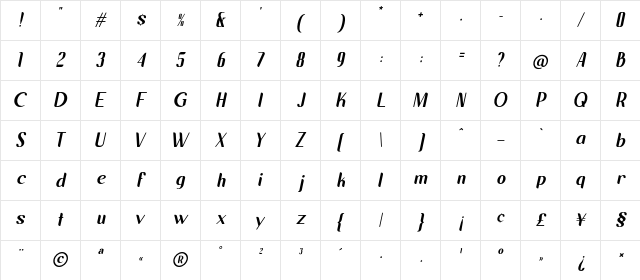
Laksmi Italic Free Font
Laksmi Italic
Foundry: Dotzeem
Designer: Hazim Mujahid
Design Context for Laksmi
Laksmi is a composed and adaptable typeface that performs quietly and consistently across a wide range of design contexts. The slanted form adds forward momentum and visual energy.
Pro Tip: Use Laksmi for emphasis, pull quotes, and subheadings where its slanted energy can add rhythm to the layout.